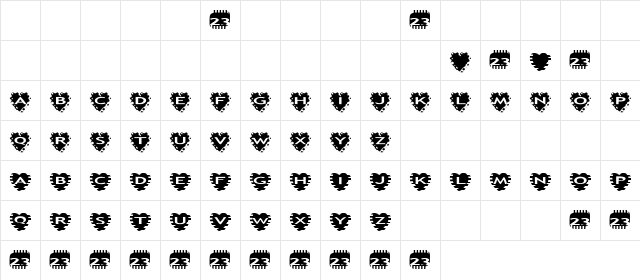
Zone23_Two Kinds of Love V Normal Free Font
Zone23_Two Kinds of Love V Normal
Complete Zone23_Two Kinds of Love V Normal glyph index. Displaying only characters natively supported by Zone23_Two Kinds of Love V Normal font.
Design Context for Zone23_Two Kinds of Love V
Zone23_Two Kinds of Love V is a composed and adaptable typeface that performs quietly and consistently across a wide range of design contexts.